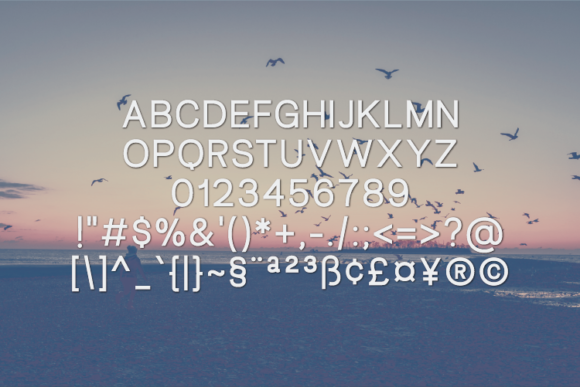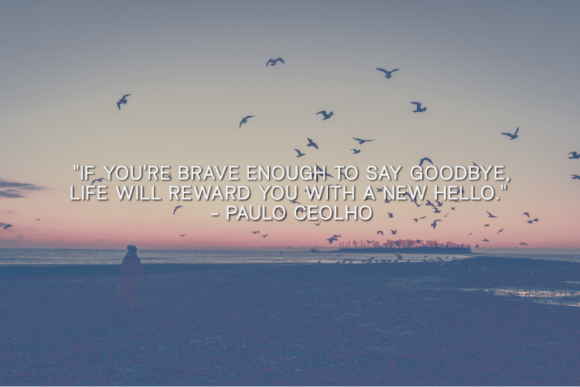
Femium Font: The Modern Sans Serif for Your Design Needs
Femium is a modern and distinct sans serif font that has been gaining popularity among designers and crafters. Its clean and sleek design makes it suitable for a wide variety of designs, from branding and advertising to packaging and digital media. In this article, we’ll explore the features and benefits of Femium font and why it’s becoming a favorite among designers.
What is Femium Font?
Femium is a sans serif font, which means it doesn’t have the small lines or flourishes at the end of the letters, giving it a clean and minimalist look. The font is designed to be highly legible and versatile, making it perfect for use in a variety of contexts. Whether you’re designing a logo, creating a brochure, or crafting a social media post, Femium font is a great choice.
Features of Femium Font
Femium font has several features that make it stand out from other sans serif fonts. Some of its key features include:
- Clean and minimalist design: Femium font has a clean and minimalist design that makes it perfect for modern designs.
- High legibility: The font is designed to be highly legible, even at small sizes, making it perfect for use in a variety of contexts.
- Versatile: Femium font is versatile and can be used in a wide range of designs, from branding and advertising to packaging and digital media.
- Distinctive: Femium font has a distinctive look that sets it apart from other sans serif fonts.
Benefits of Using Femium Font
There are several benefits to using Femium font in your designs. Some of the benefits include:
- Improved legibility: Femium font is designed to be highly legible, which means that your text will be easy to read, even at small sizes.
- Enhanced aesthetics: The clean and minimalist design of Femium font makes it perfect for modern designs, and its distinctive look will help your designs stand out.
- Increased versatility: Femium font can be used in a wide range of designs, from branding and advertising to packaging and digital media.
- Easy to pair with other fonts: Femium font is easy to pair with other fonts, making it perfect for use in multi-font designs.
Use Cases for Femium Font
Femium font is suitable for a wide variety of designs, including:
- Branding and advertising: Femium font is perfect for use in branding and advertising, where its clean and minimalist design will help your message stand out.
- Packaging design: The font’s high legibility and versatility make it perfect for use in packaging design.
- Digital media: Femium font is perfect for use in digital media, including social media posts, blogs, and websites.
- Print media: The font is also suitable for use in print media, including brochures, flyers, and posters.
Why Femium Font is a Great Choice for Designers
Femium font is a great choice for designers for several reasons. Some of the reasons include:
- High-quality design: The font is designed to high-quality standards, ensuring that your designs will look professional and polished.
- Constantly updated: The font is constantly updated, which means that you’ll always have access to the latest features and improvements.
In conclusion, Femium font is a modern and distinct sans serif font that is suitable for a wide variety of designs. Its clean and minimalist design, high legibility, and versatility make it perfect for use in branding and advertising, packaging design, digital media, and print media. Whether you’re a designer or crafter, Femium font is a great choice for your design needs.